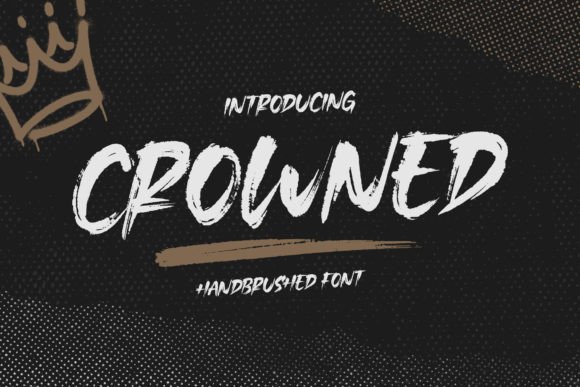
Behold, the Crowned Font - your gateway to crafting designs that capture hearts and turn heads. This exquisite script font, brought to life by the visionary artists at Timur Type, is a symphony of modern elegance and timeless charm. Its handbrushed strokes exude a warmth and personality that will elevate your projects to new heights.
With Crowned, you'll embark on a creative journey where your imagination knows no bounds. Unleash its potential for product packaging and branding projects, creating designs that exude sophistication and leave a lasting impression. Transform your social media presence with captivating posts and stories that resonate with your audience. Let Crowned be your muse as you design invitations and greeting cards that evoke a sense of timeless elegance.
Whether you're a seasoned designer or just starting your creative adventure, Crowned is your perfect companion. Its versatility knows no limits, making it the ultimate choice for a wide range of projects. From product labels and logos to magazine covers and website headers, Crowned will add a touch of magic to every design you create.
But don't just take our word for it - let the beauty of Crowned speak for itself. Try it out today and discover how its enchanting strokes can transform your designs into breathtaking works of art. Let your creativity soar and experience the joy of creating with Crowned.